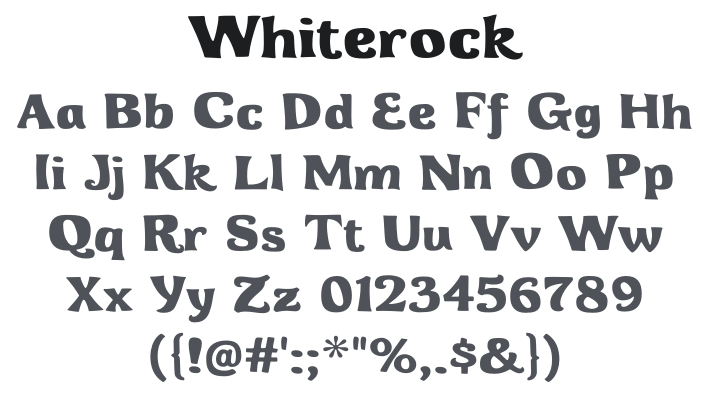
Whiterock Font
About Whiterock
Whiterock is a bold, chunky display serif with thick, rounded letterforms and wavy, organic curves that radiate laid-back 1970s beach culture and hippie warmth — confident and carefree without being loud. Its heavy, groovy character feels like hand-painted surf shop signage. Perfect for beach branding, surf culture designs, retro lifestyle products, festival posters, and any design needing sun-drenched, free-spirited, decade-defining cool.